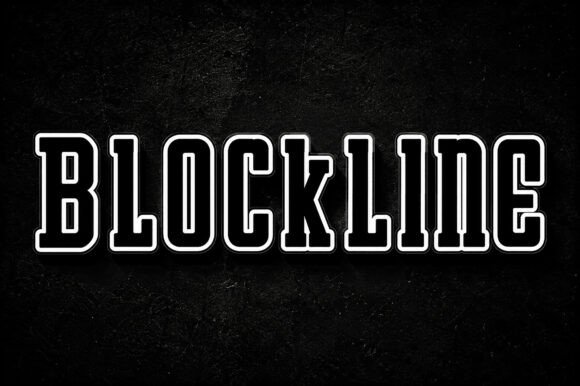
Unlocking the Power of Blockline Font: A Designer’s Best Friend
I still remember the time I was working on a sports branding project, and my client asked for a bold, eye-catching font that would make their team logo stand out. I scoured the internet, tried out countless fonts, but nothing seemed quite right. That was until I stumbled upon Blockline – the quintessential Bold Varsity Display Font. It was love at first sight! ✨
In this article, I’ll share my experience with Blockline, its features, and how to make the most of it in your design projects. Whether you’re a seasoned designer or a creative hobbyist, you’ll find this font to be a game-changer.
A Honest Review of Blockline Font
What I Love About Blockline
- ✅ Robust and Imposing Persona: Blockline exudes a powerful, self-assured look that’s perfect for sports branding, bold gym-jersey designs, and dynamic team logos.
- ✅ Strong Geometric Structures: The font’s block-style design principle makes a striking visual statement while ensuring uncluttered readability in both digital and print landscapes.
- ✅ Time-Honored Collegiate Aesthetic: Blockline’s inspiration from classic college, sports, and varsity lettering gives it a unique, nostalgic charm.
- ✅ Versatility: This font can be used for a wide range of projects, from merchandise and packaging designs to badges and retro headline graphics.
While Blockline is an excellent font, there are a few things to keep in mind: 🤔
- ⚠️ Limited Use in Body Text: Due to its bold nature, Blockline is best suited for headlines, titles, and short text snippets. It’s not ideal for body text or lengthy paragraphs.
- ⚠️ Careful Kerning Required: As with any bold font, kerning can be a bit tricky. Make sure to adjust the spacing to ensure optimal readability.
The Story Behind Blockline Font
Blockline’s design inspiration comes from the classic college, sports, and varsity lettering of the past. Imagine a fictional designer, Alex, who grew up playing sports and attending college football games. Alex wanted to create a font that captured the spirit of athletic competition and school pride. After months of research and design, Blockline was born – a font that’s both bold and beautiful.
Q: What is Blockline font best used for?
A: Blockline font is perfect for sports branding, bold gym-jersey designs, dynamic team logos, vivid posters, chic apparel, and stylish streetwear.
Q: Can I use Blockline for body text?
A: While possible, Blockline is best suited for headlines, titles, and short text snippets due to its bold nature.